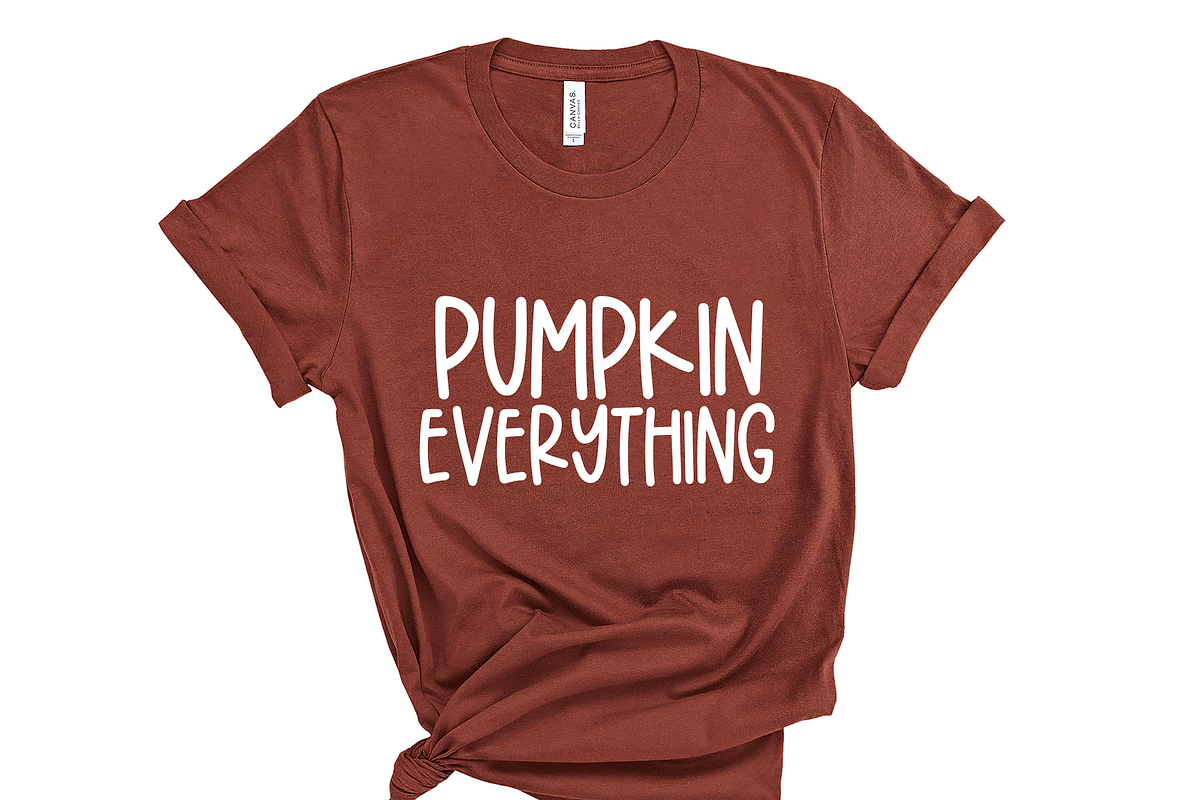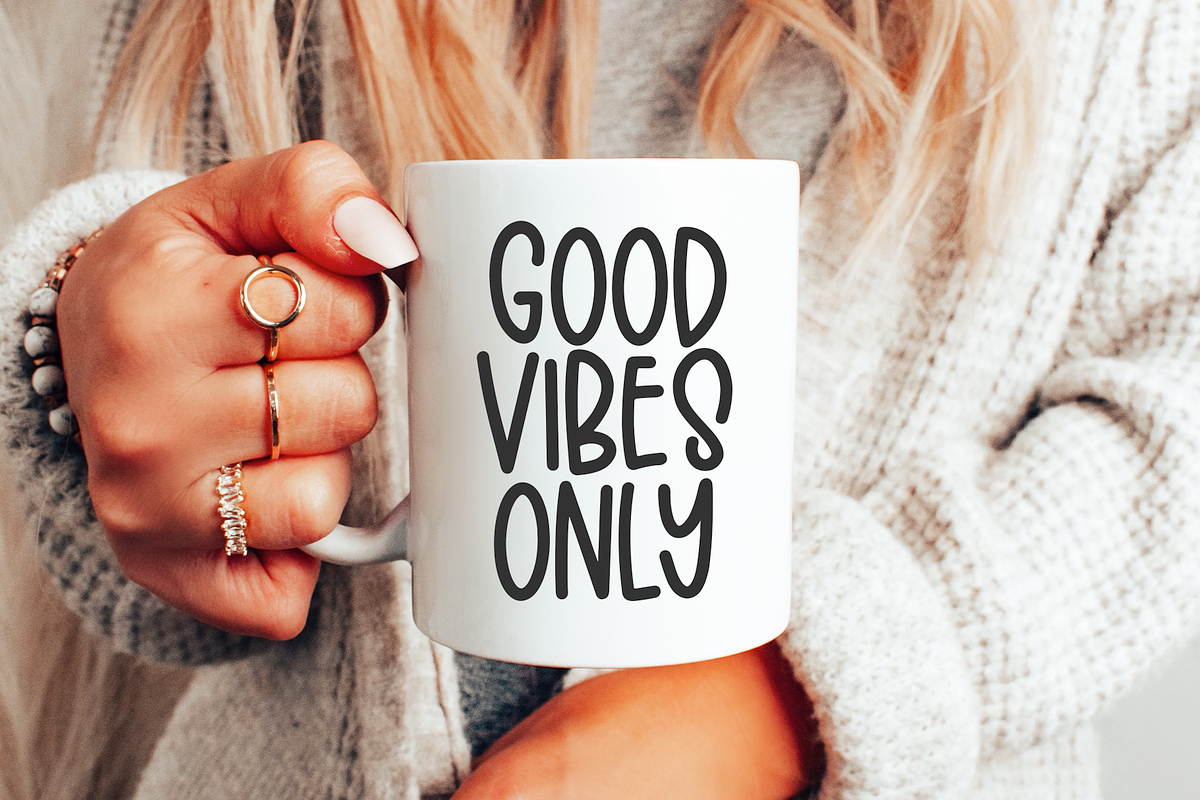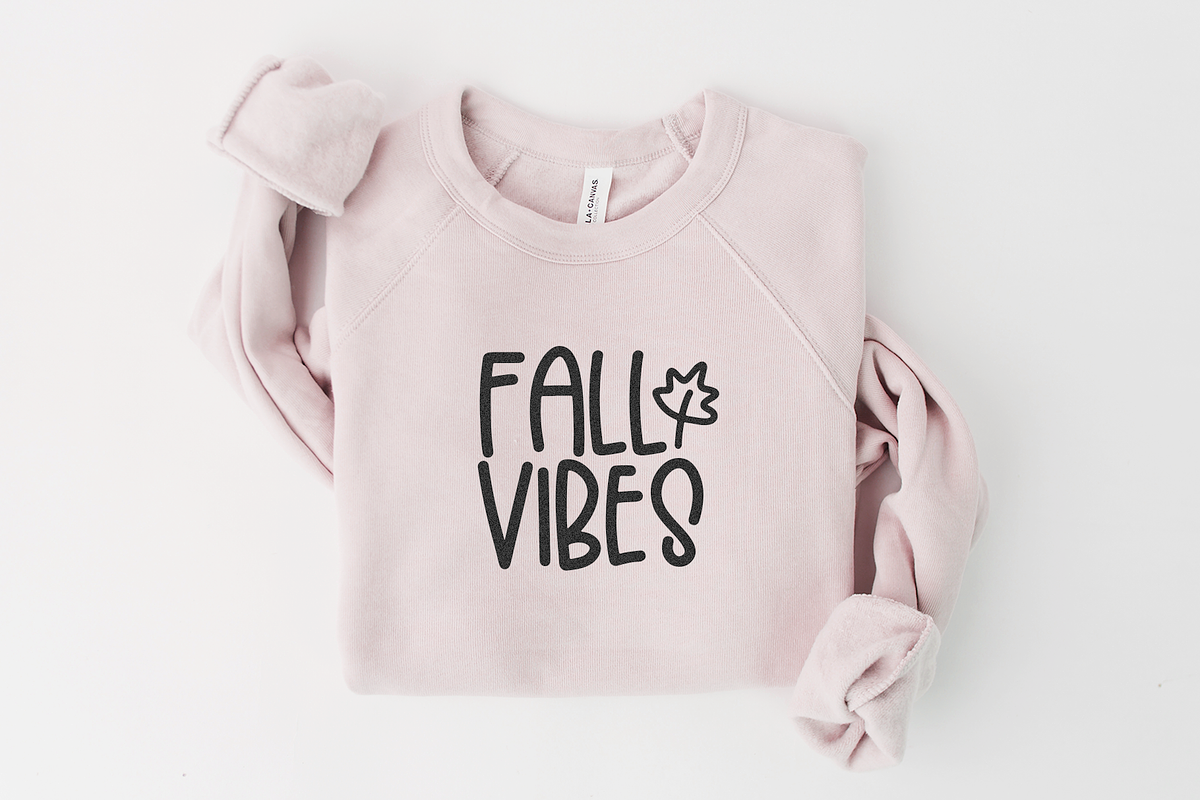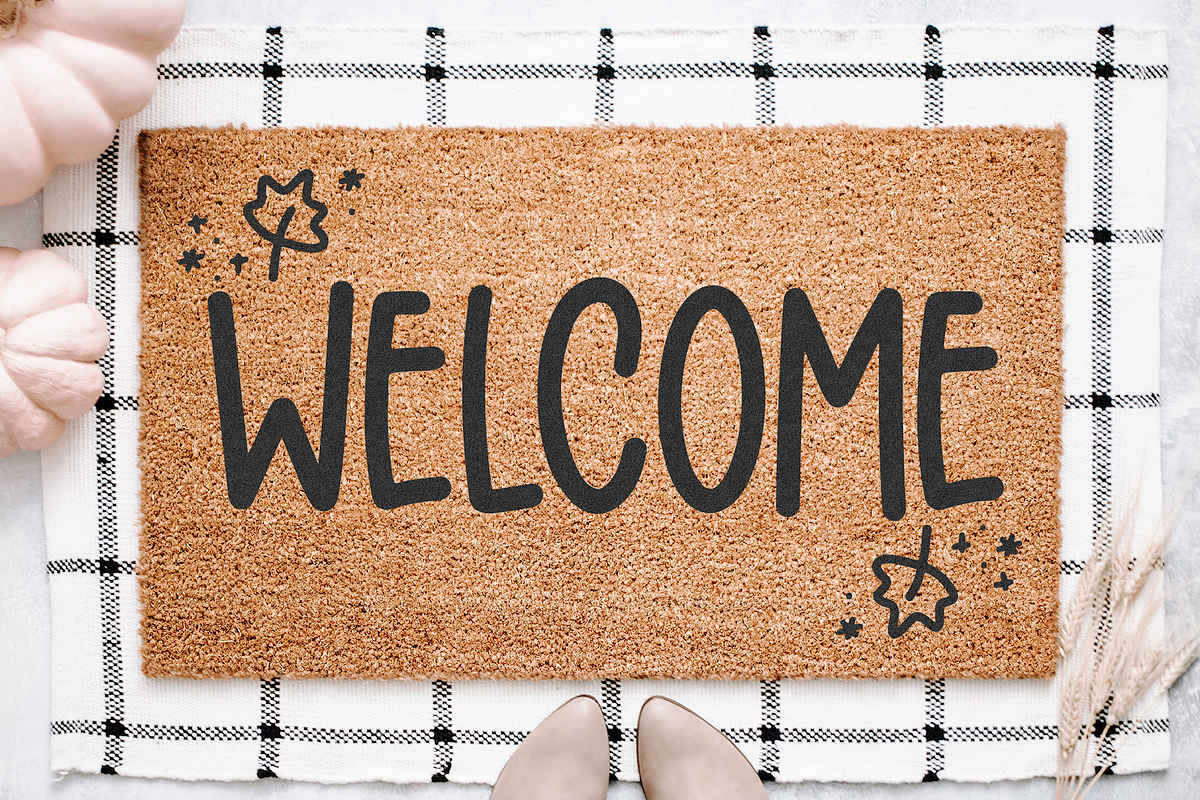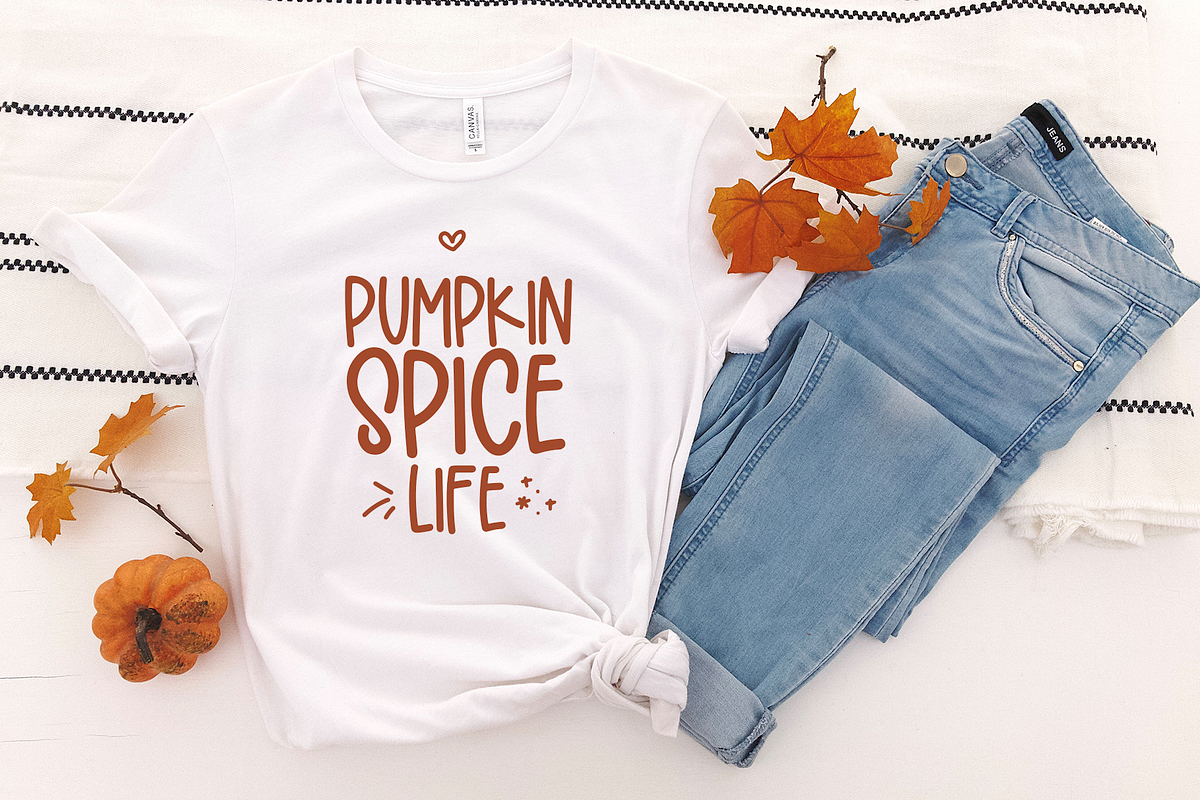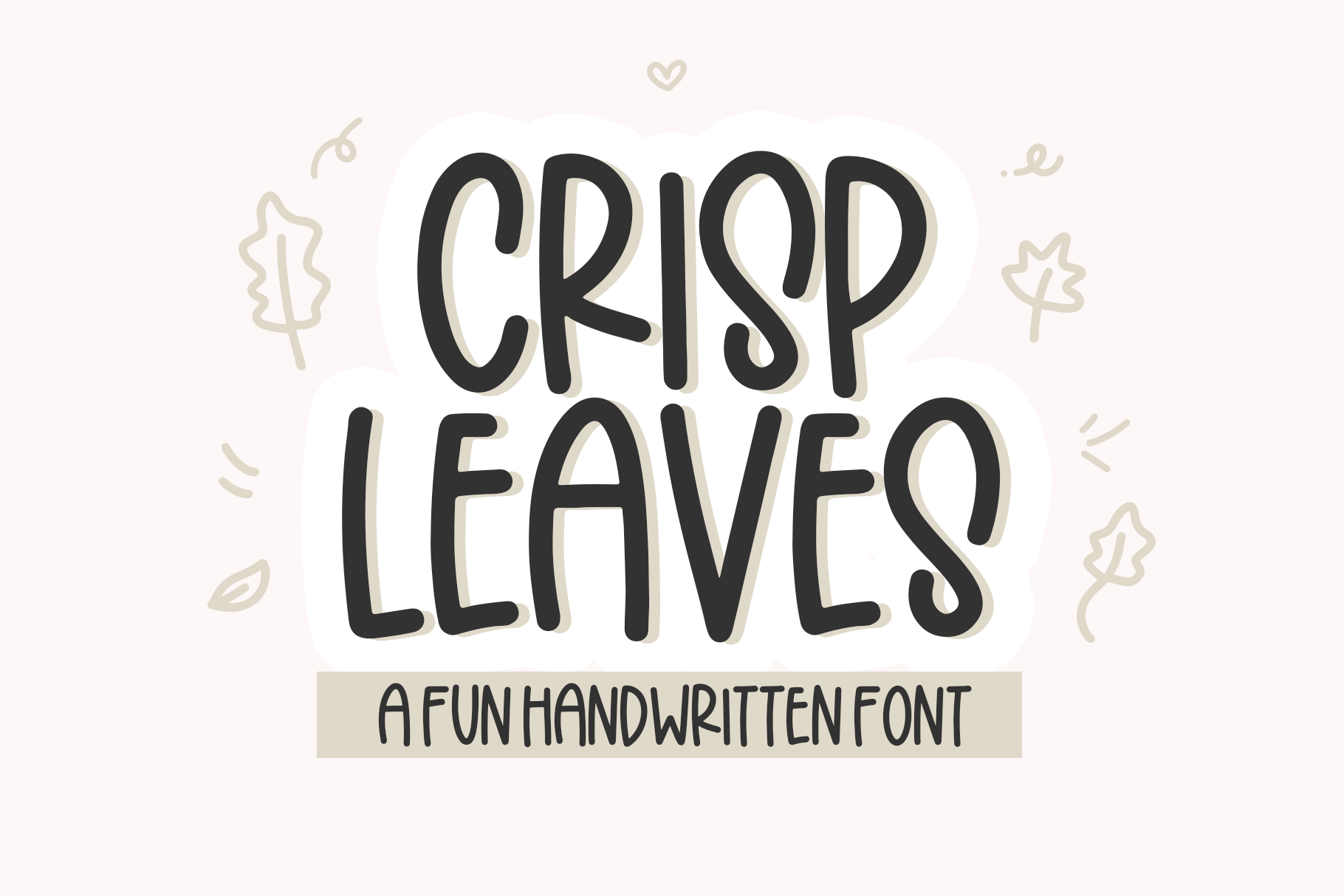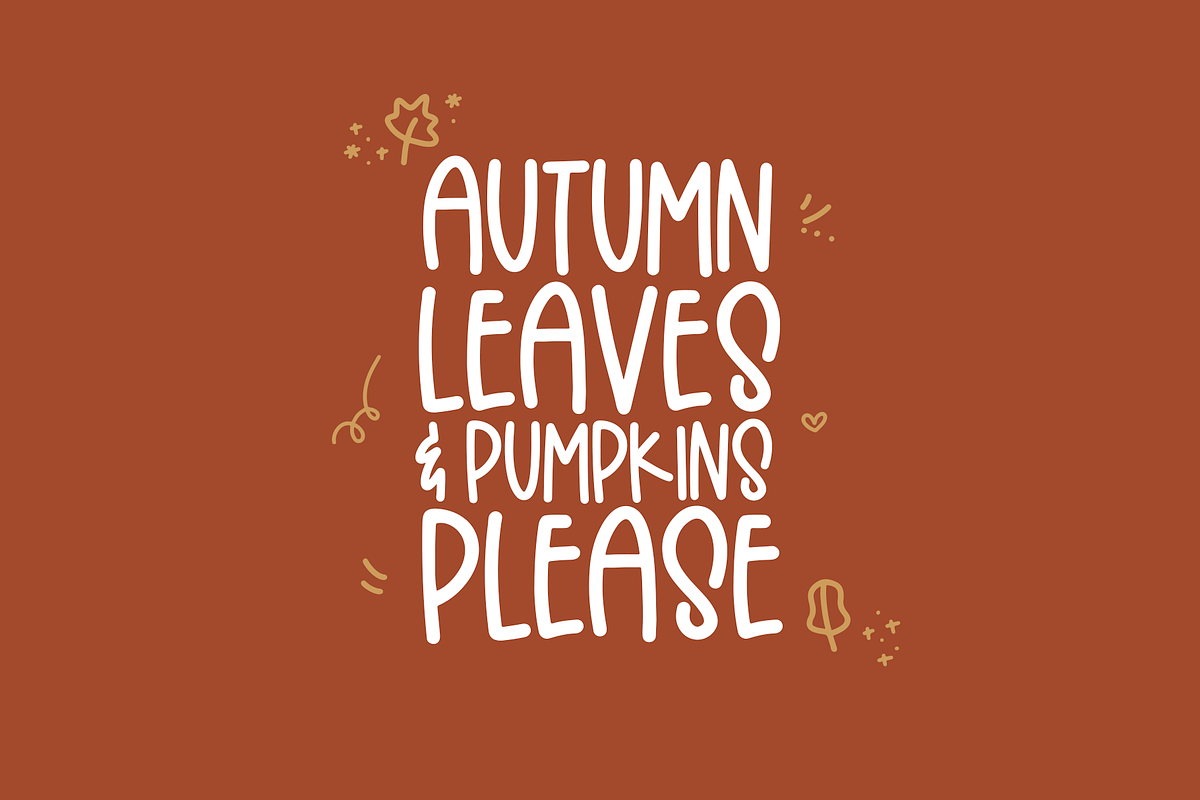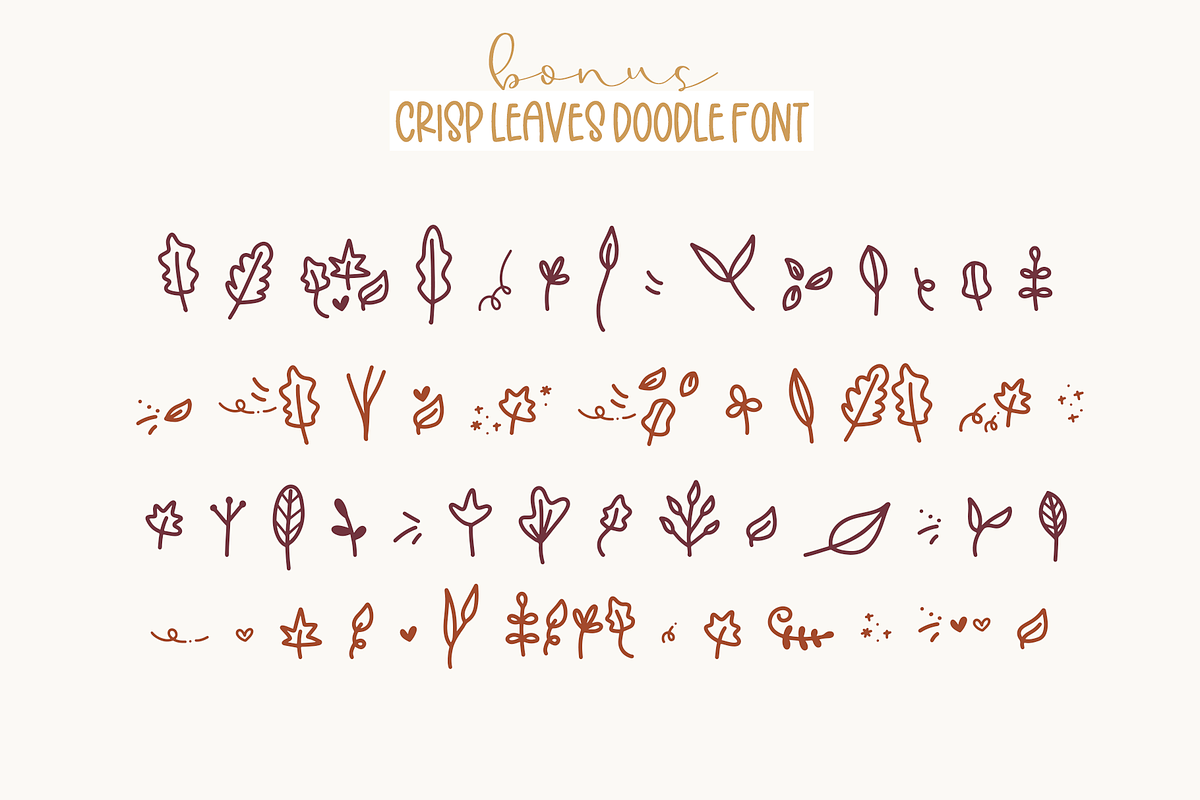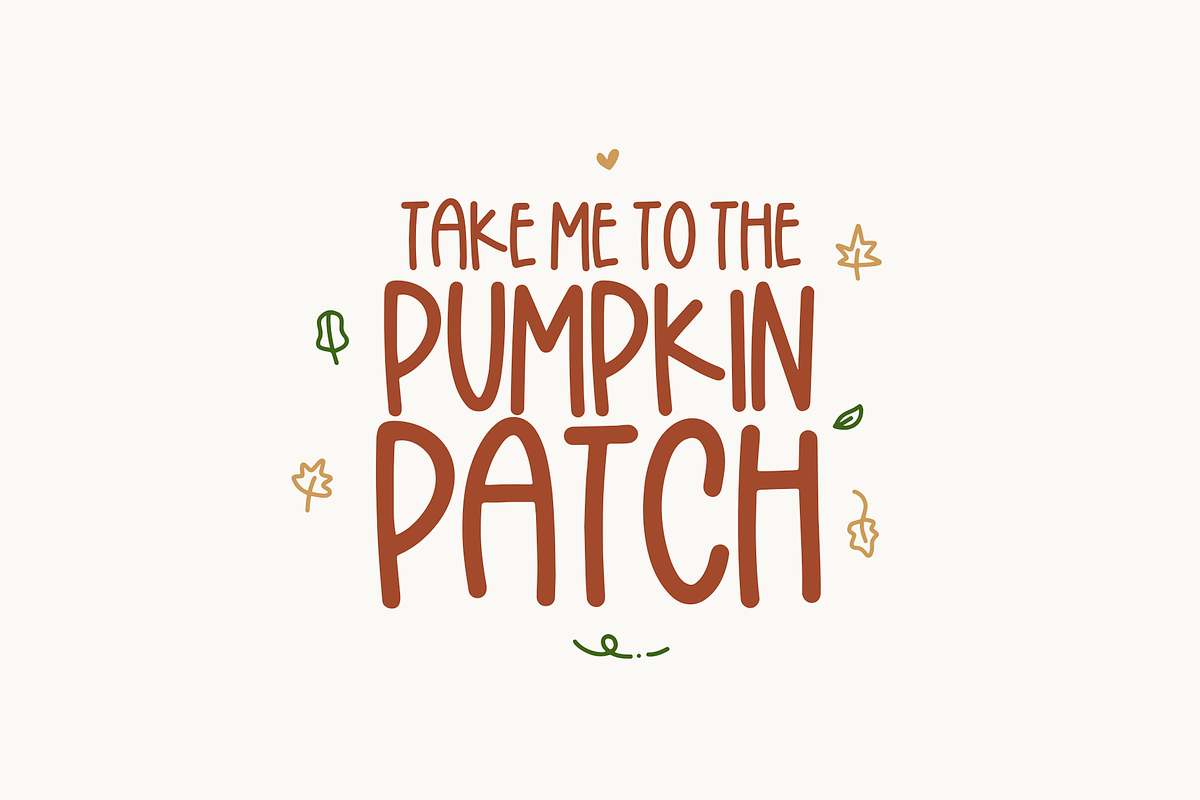
Crisp Leaves | Font with Doodles
Crisp Leaves is a quirky handwritten font. Includes a doodle font with fun embellishments and leaves for all of your fall designs!
This font is perfect for branding, svg designs, shirts, mugs, fall decor, blogs, logos, and more!
Most accent characters are included.